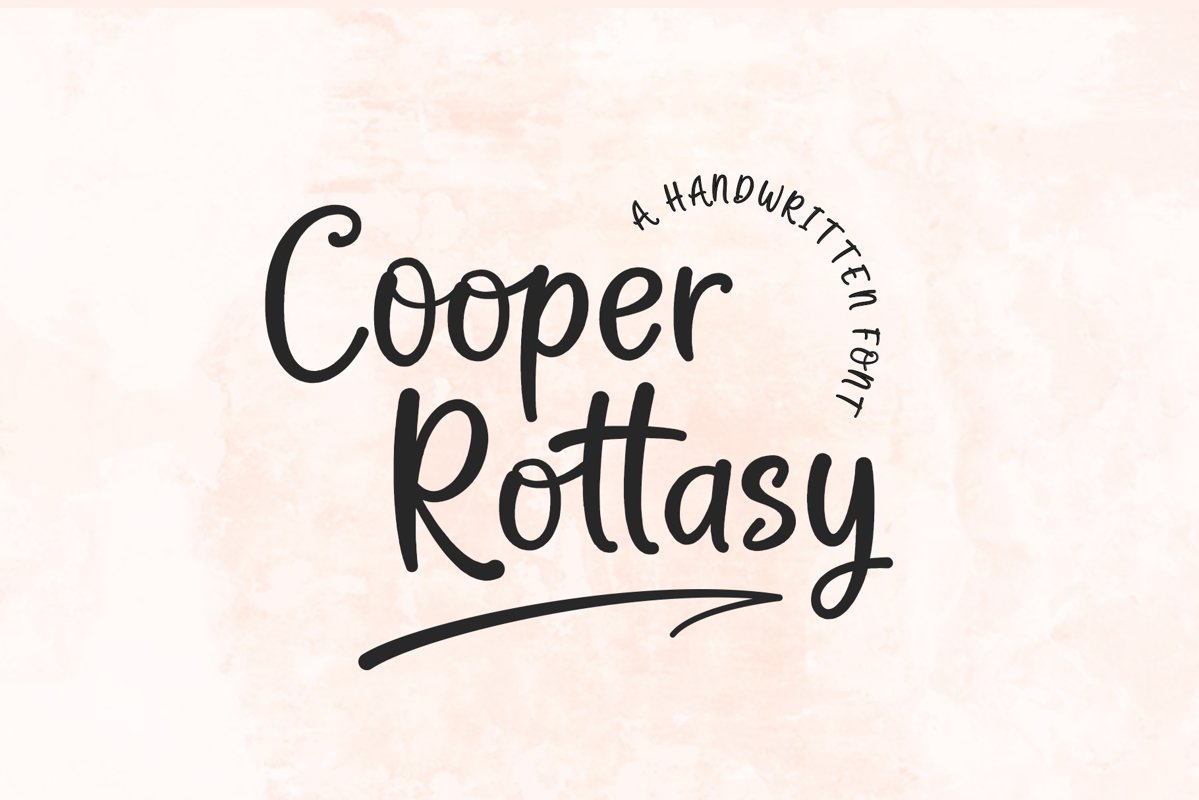
Cooper Rottasy - A Handwritten Font
Cooper Rottasy is a cute handwritten script font!
This font is perfect for quotes, shirt designs, websites, branding, children's designs,  blogs, logos, invitations and more!